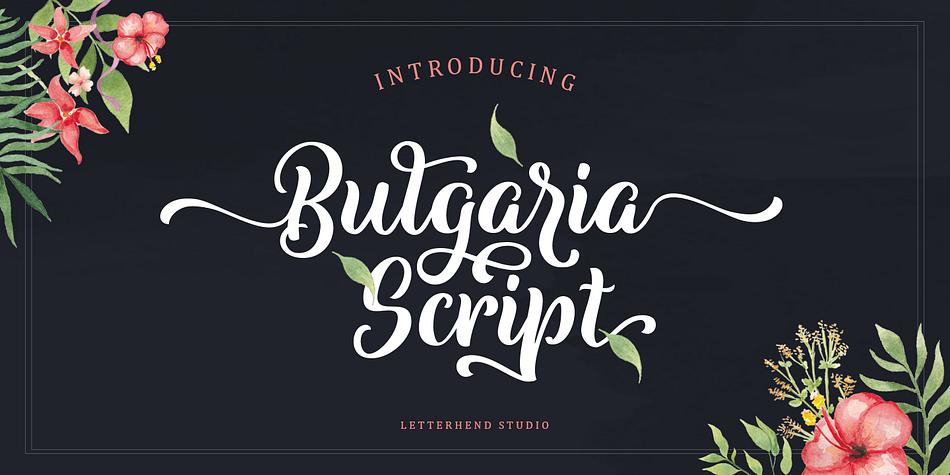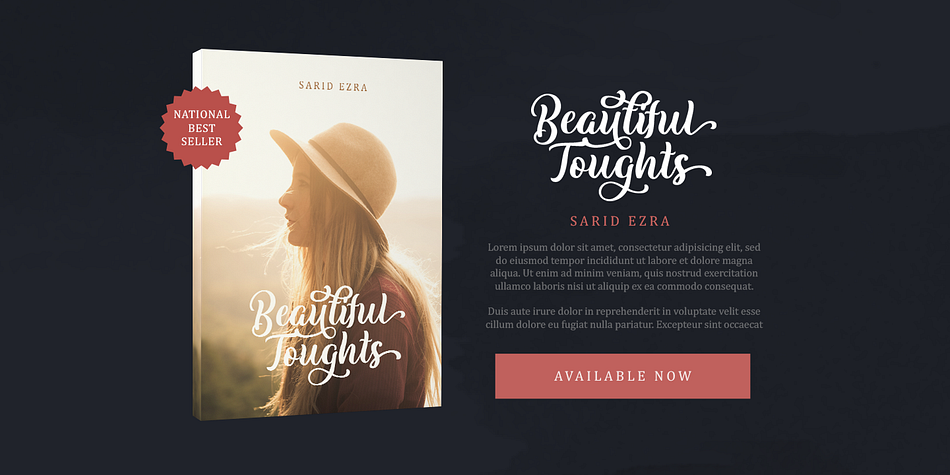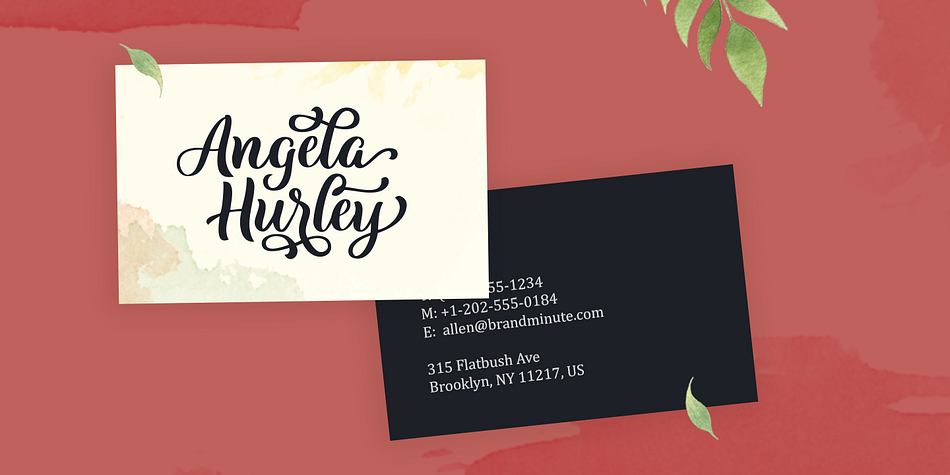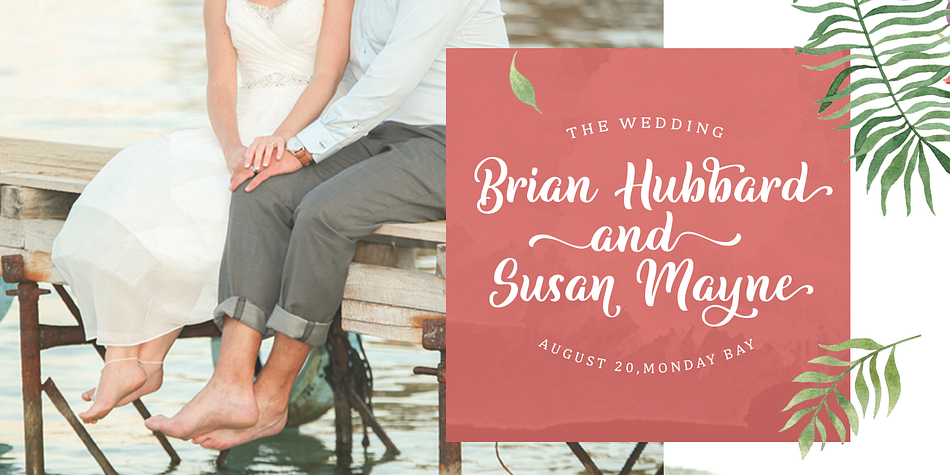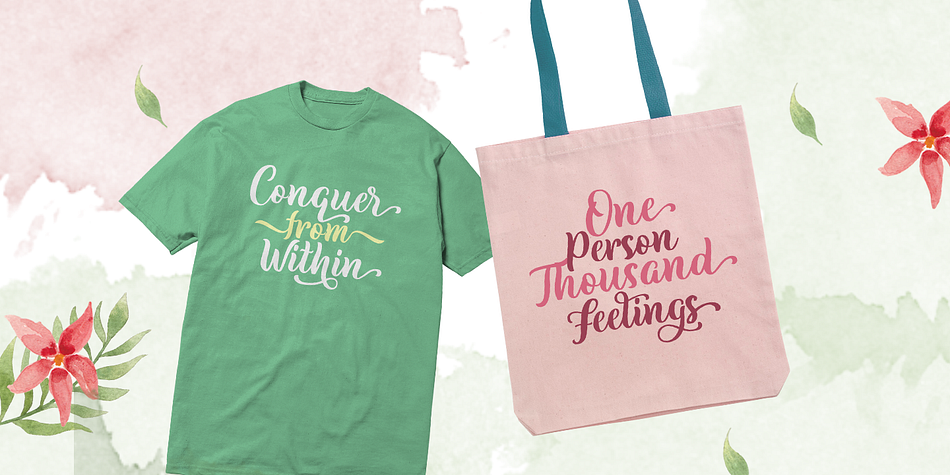
Designed by Hendry Juanda, Bulgaria is a brush script font published by Letterhend Studio.
Bulgaria is a romantic modern script with a twist of fun! The natural hand writing script is suitable for you who needs a typeface for headline, logotype, apparel, invitation, branding, packaging, advertising etc. This typeface is comes in uppercase, lowercase, punctuations, symbols & numerals, stylistic set alternate, ligatures, etc also support multilingual. It also already PUA Encoded.